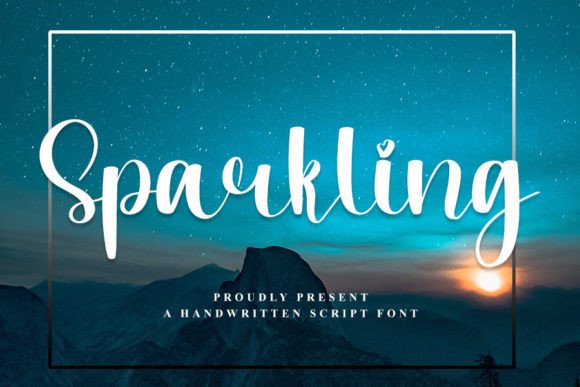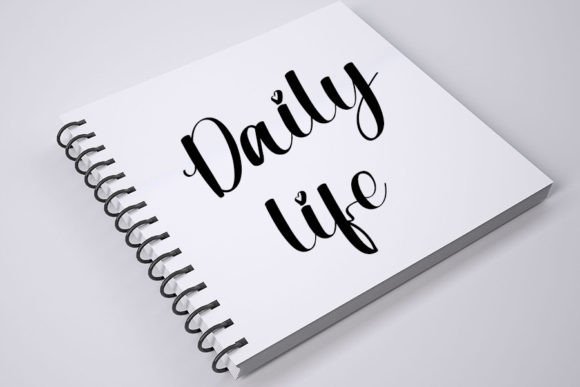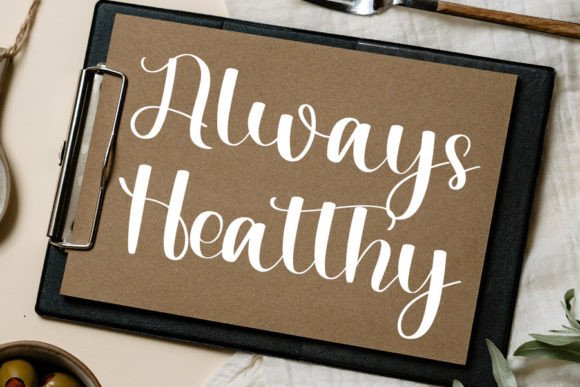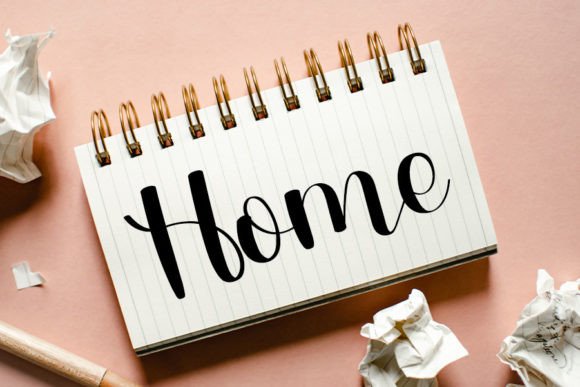
Sparkling Font
About Sparkling Font
Sparklingfont is a neat and beautifully crafted handwritten typeface designed to add an elegant touch to your favorite projects. With its distinct and timeless style, it transforms ordinary text into spectacular designs, making it an excellent choice for creatives seeking sophistication combined with natural handwriting charm.
Elegant Handwritten Style with Timeless Appeal
This font features clean, flowing lines that bring a refined and polished feel to your work. Sparklingfont blends the warmth of handwritten text with a sleek design, creating a versatile typeface that suits a wide range of design purposes. Its timeless nature means it works well in both modern and classic projects.
Ideal for a Variety of Creative Uses
Whether you’re designing wedding invitations, greeting cards, branding materials, or social media posts, Sparklingfont delivers elegance and readability. Its neat and graceful characters are perfect for logos, packaging, posters, and digital designs, helping your projects stand out with a personalized, handwritten touch.
Enhance Your Creative Projects with Sparkling Font
Sparklingfont offers more than just beauty; it helps convey emotions and personality in your designs. Its elegant curves invite viewers to connect deeply with your message, enhancing the impact and memorability of your work.
Why Choose Sparkling Font?
By choosing Sparklingfont, you add a blend of elegance, clarity, and timeless style to your creative toolkit. It balances artistic expression and practical usability, making it a go-to font for designers who want their work to shine. Incorporate Sparklingfont into your next project to make your designs truly sparkle.